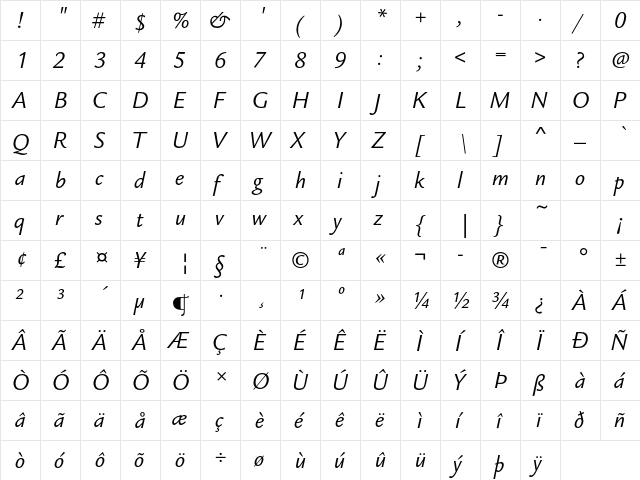
ITC Legacy Sans Std Book Italic
| Designer | Ronald Arnholm |
Design Context for ITC Legacy Sans Std Typeface
ITC Legacy Sans Std takes a measured approach to typography — its balanced proportions and neutral character make it a reliable workhorse for both digital and print work. Its italic angle brings a sense of urgency and motion to the letterforms.
Pro Tip: Try ITC Legacy Sans Std for annotation and caption copy alongside an upright companion — the contrast in angle creates a dynamic but ordered typographic system.